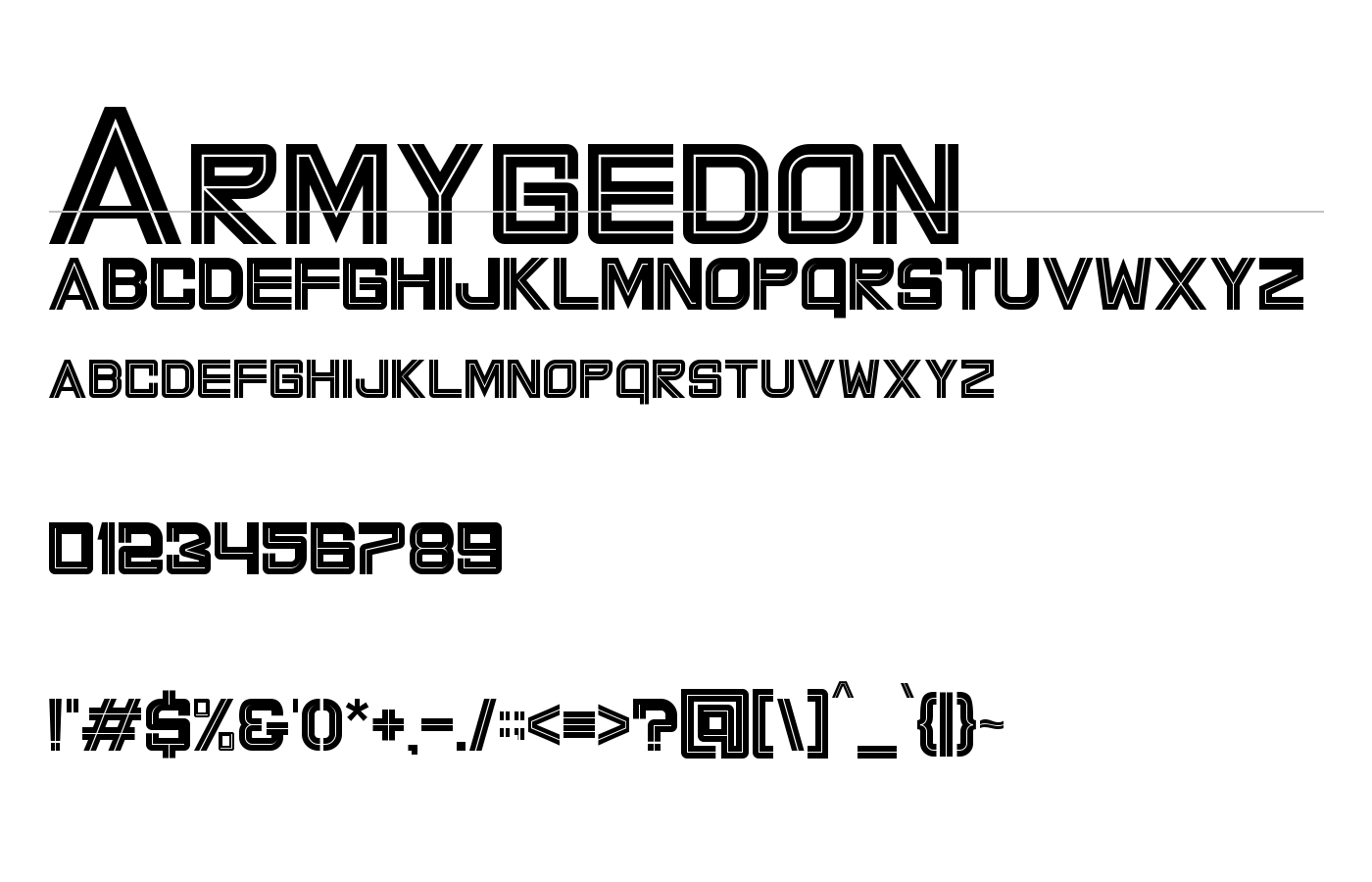
Armygedon is a bold, condensed sans-serif font with a futuristic and industrial feel, characterized by strong geometric lines and a mix of solid and outlined strokes. Its high contrast between thick and thin elements, along with unique angular details, gives it a commanding and modern look perfect for impactful headlines, logos, and branding in technology or gaming industries. This font works best where a striking, edgy style is needed to convey strength and innovation.
Armygedon Font
About Armygedon Font